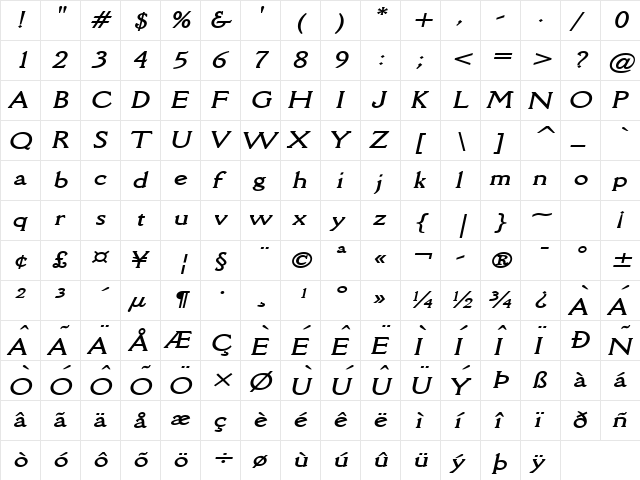
Rory Wide BoldItalic
Design Context for Rory Wide Typeface
Rory Wide is a composed and adaptable typeface that performs quietly and consistently across a wide range of design contexts. The dynamic lean of this cut emphasises speed and emphasis in any layout. The heavy weight commands attention and anchors typographic hierarchies.
Pro Tip: Use Rory Wide for emphasis, pull quotes, and subheadings where its slanted energy can add rhythm to the layout.